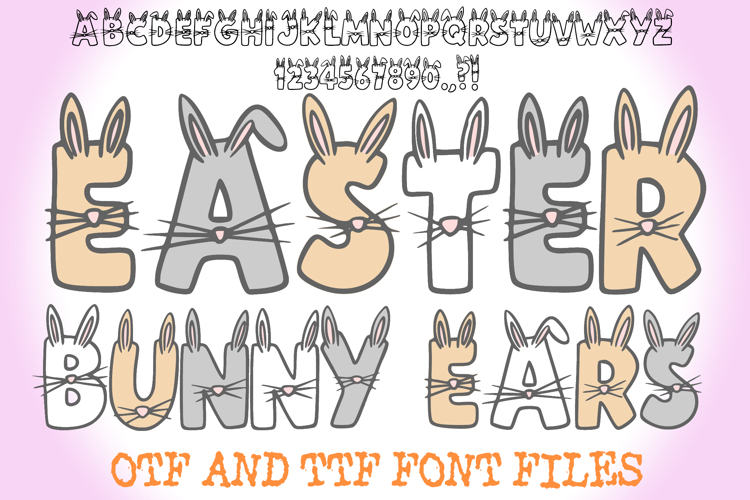
Hop into your next creative project with the Easter Bunny Ears Font! This adorable, hand-drawn display typeface is designed to bring a touch of seasonal joy to every word you write. Each uppercase letter and number is uniquely decorated with a pair of perky bunny ears and a sweet set of whiskers, making it a must-have for Easter and springtime designs.
The clean, bold outline style of this font makes it incredibly versatile—it looks fantastic as a simple black-and-white graphic, but it’s also perfect for "color-in" projects where you can fill the ears with soft pastels. Whether you are a teacher creating classroom worksheets, a crafter making personalized egg hunt bags, or designing seasonal apparel, the Easter Bunny Ears Font adds a playful, artisanal charm to your work.
Ideal For:
Easter Egg Hunts: Personalized labels, treasure map titles, and festive gift tags.
Spring Apparel: Adorable T-shirts, hoodies, and baby onesies for holiday photos.
Classroom Decor: Fun bulletin boards, student name tags, and holiday-themed educational worksheets.
Stationery & Branding: Create cute planner stickers, greeting cards, and social media graphics with a "kawaii" bunny vibe